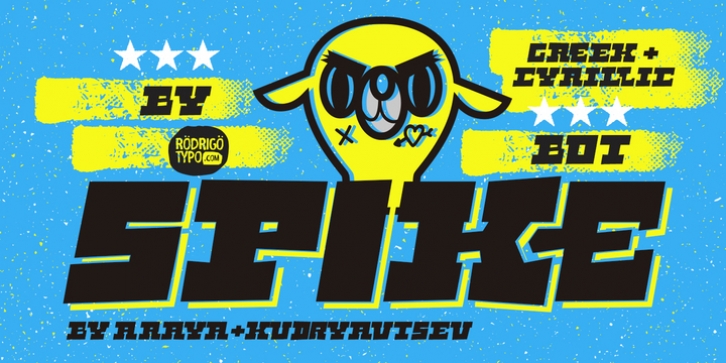
Spike Bot was designed by Rodrigo Araya Salas and published by RodrigoTypo. Spike Bot contains 8 styles and family package options.
A typography specially designed for titles, with alphabets included as Greek or Cyrillic, containing ligatures to make more entertaining.
Spike Bot Regular·
Spike Bot Regular Italic·
Spike Bot Shadow·
Spike Bot Shadow Italic·
Spike Bot Shine·
Spike Bot Shine Italic·
Spike Bot Layer Shine·